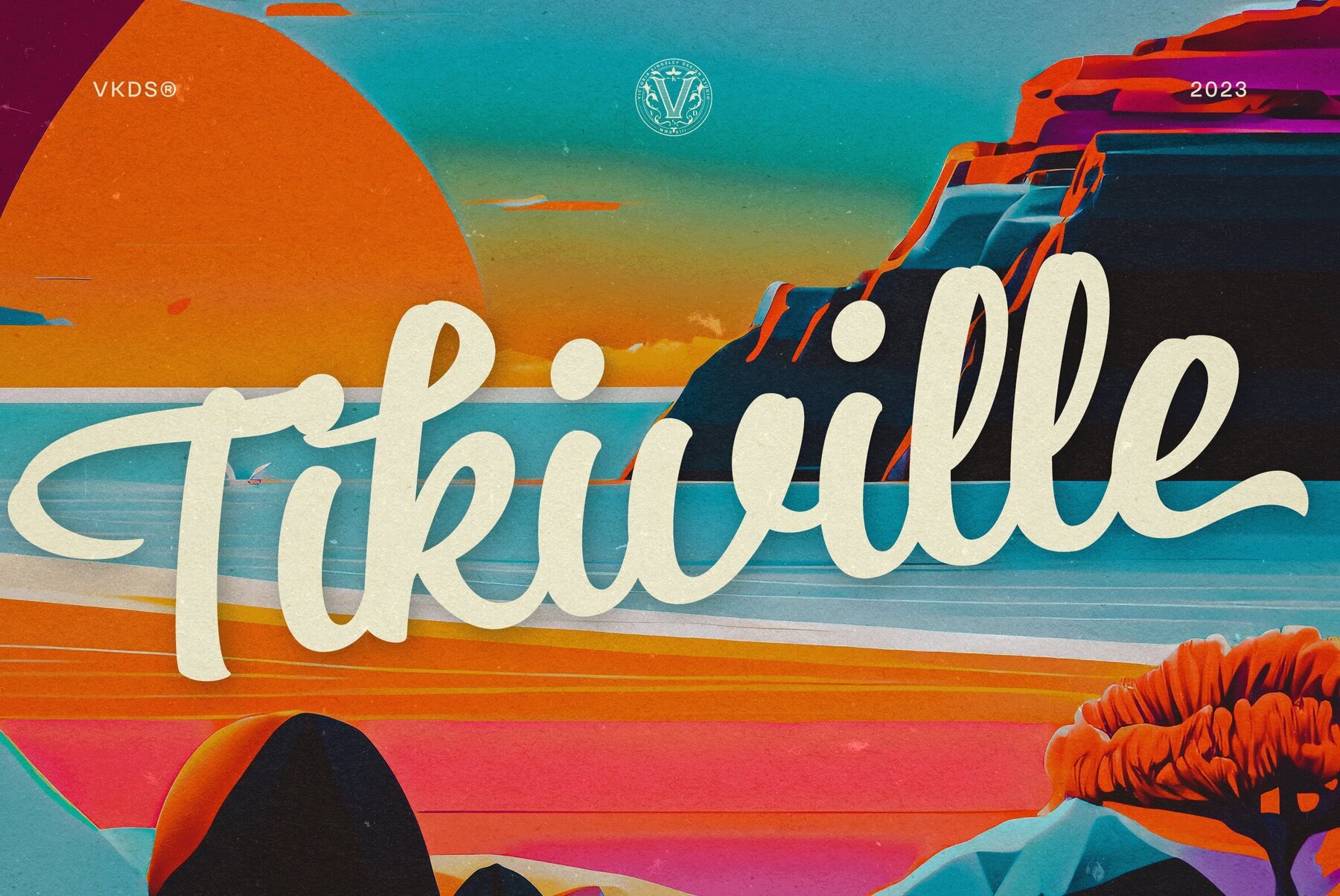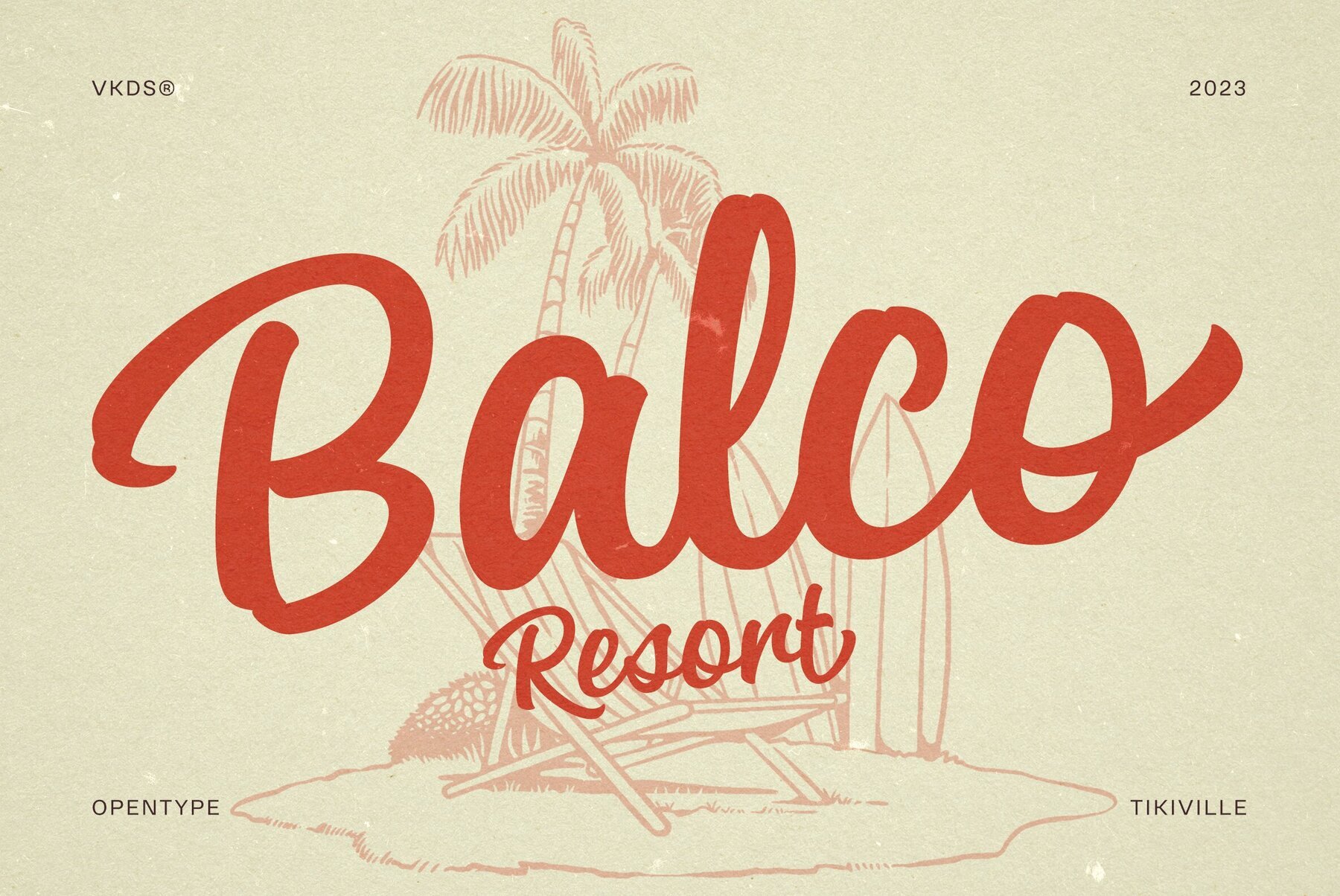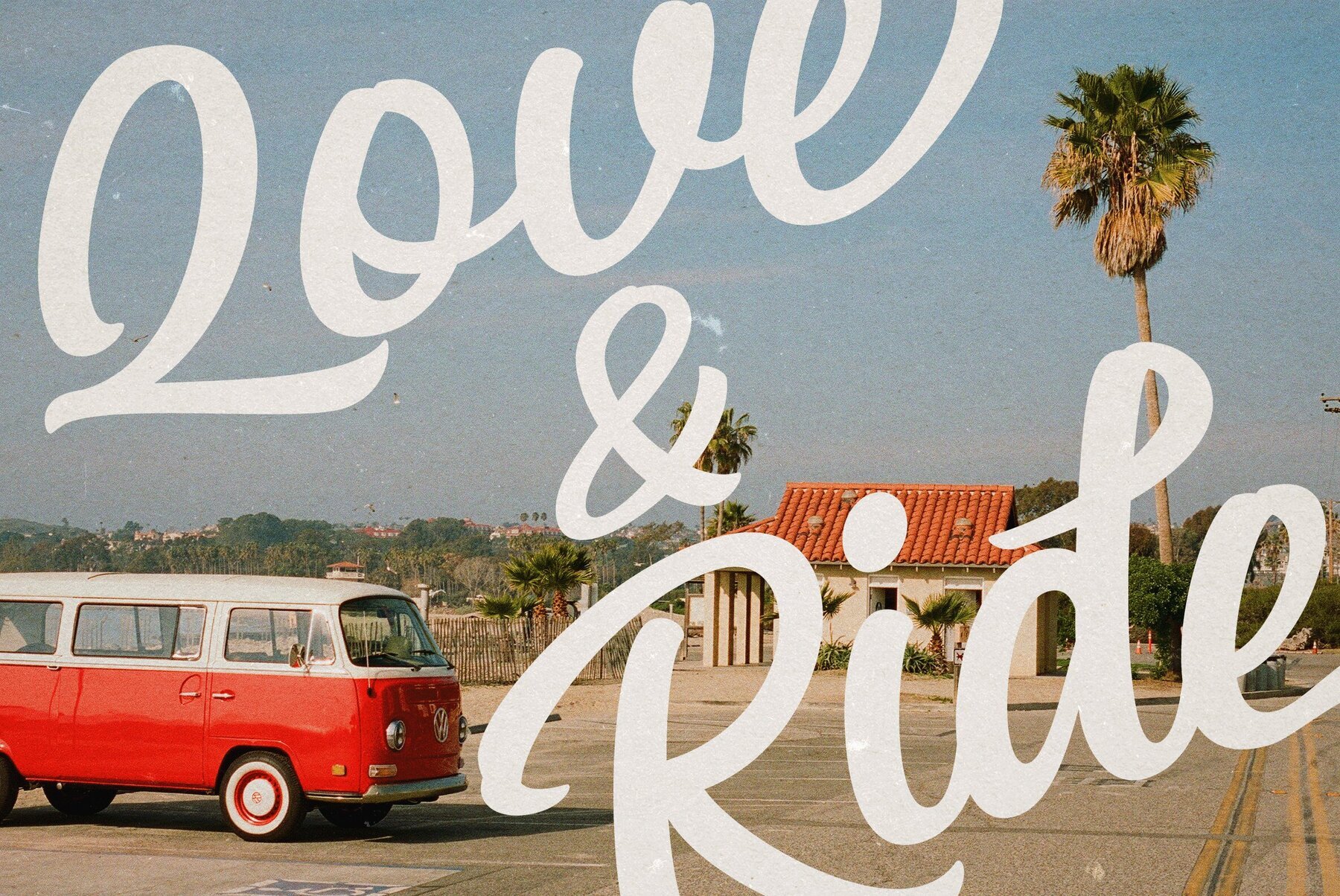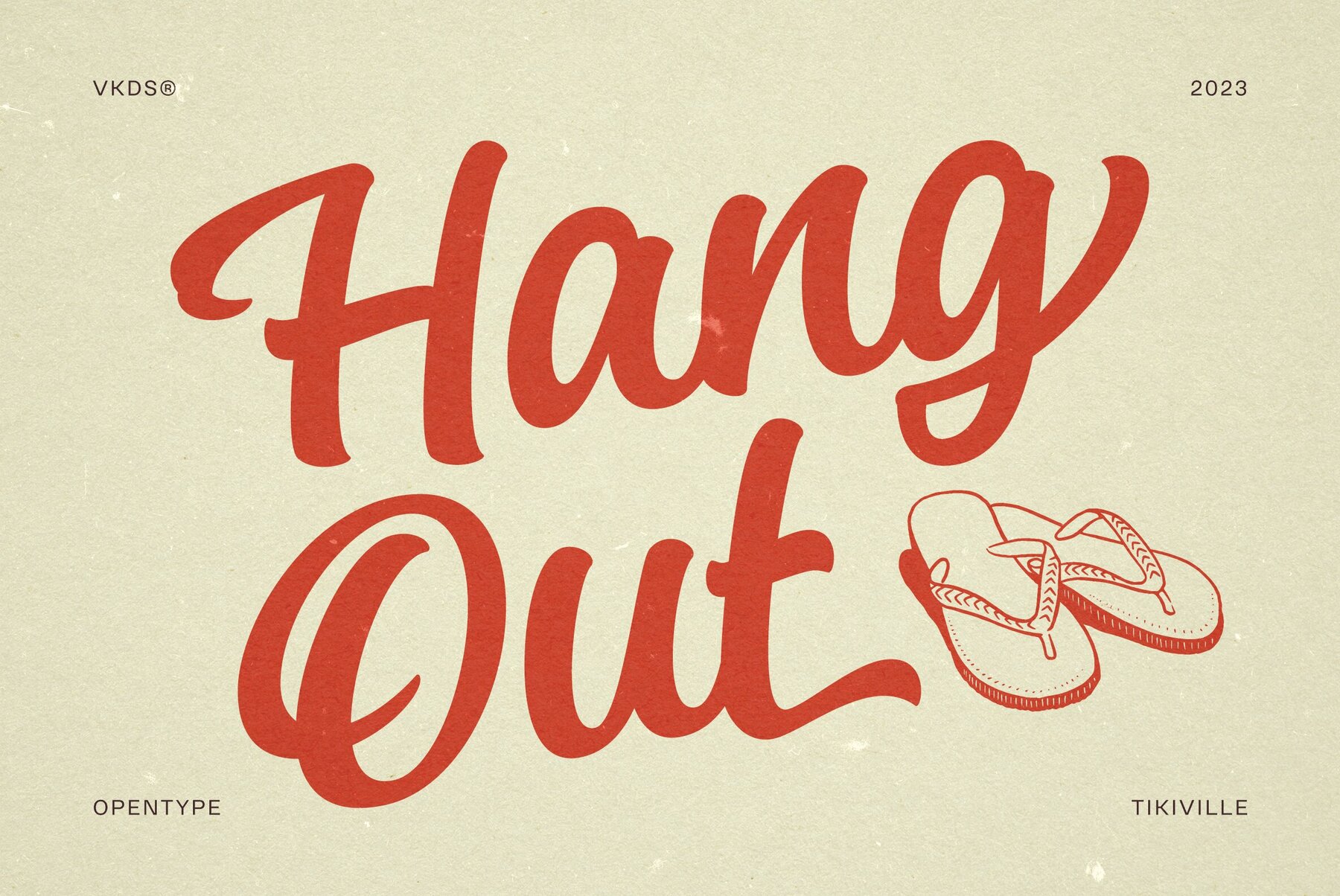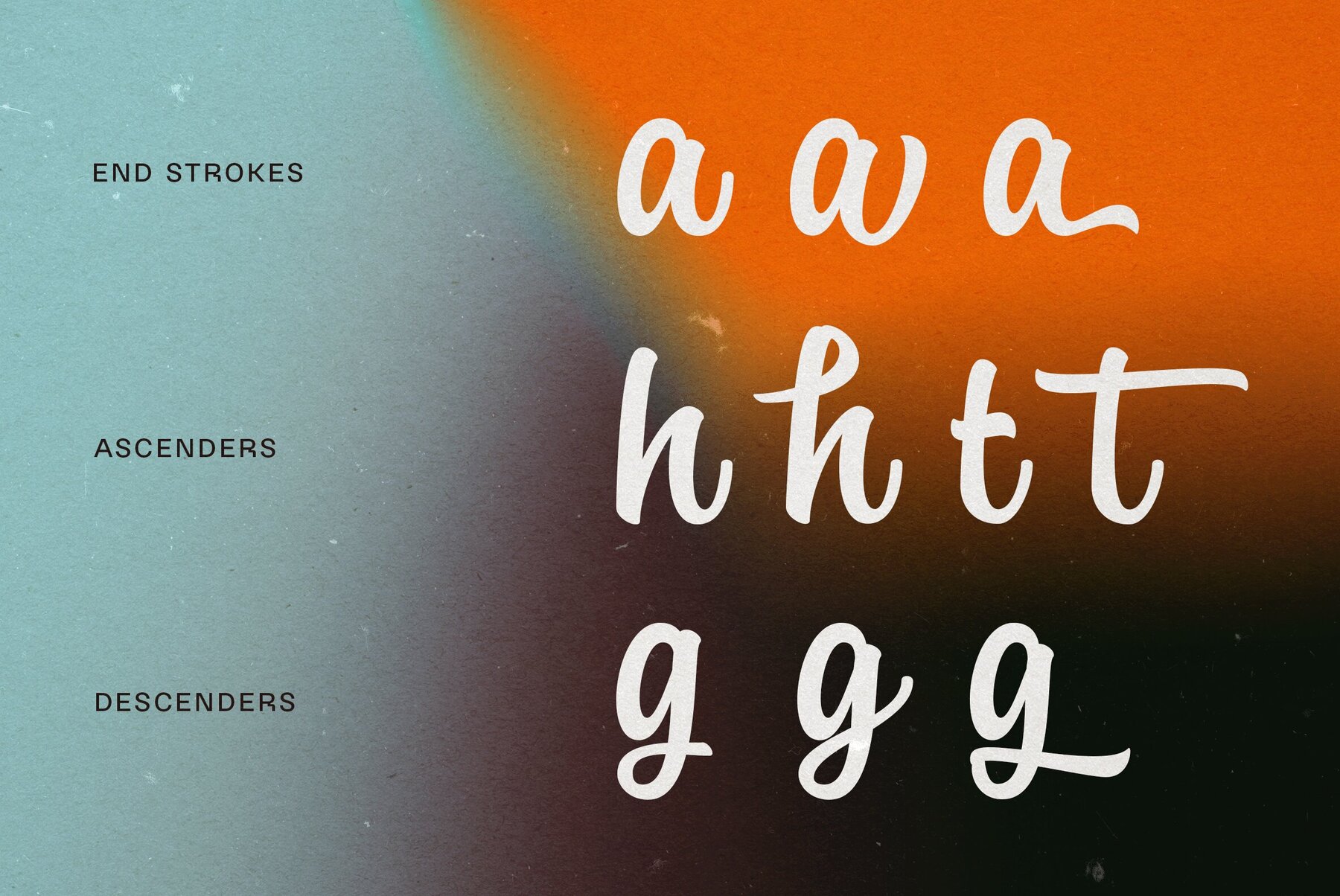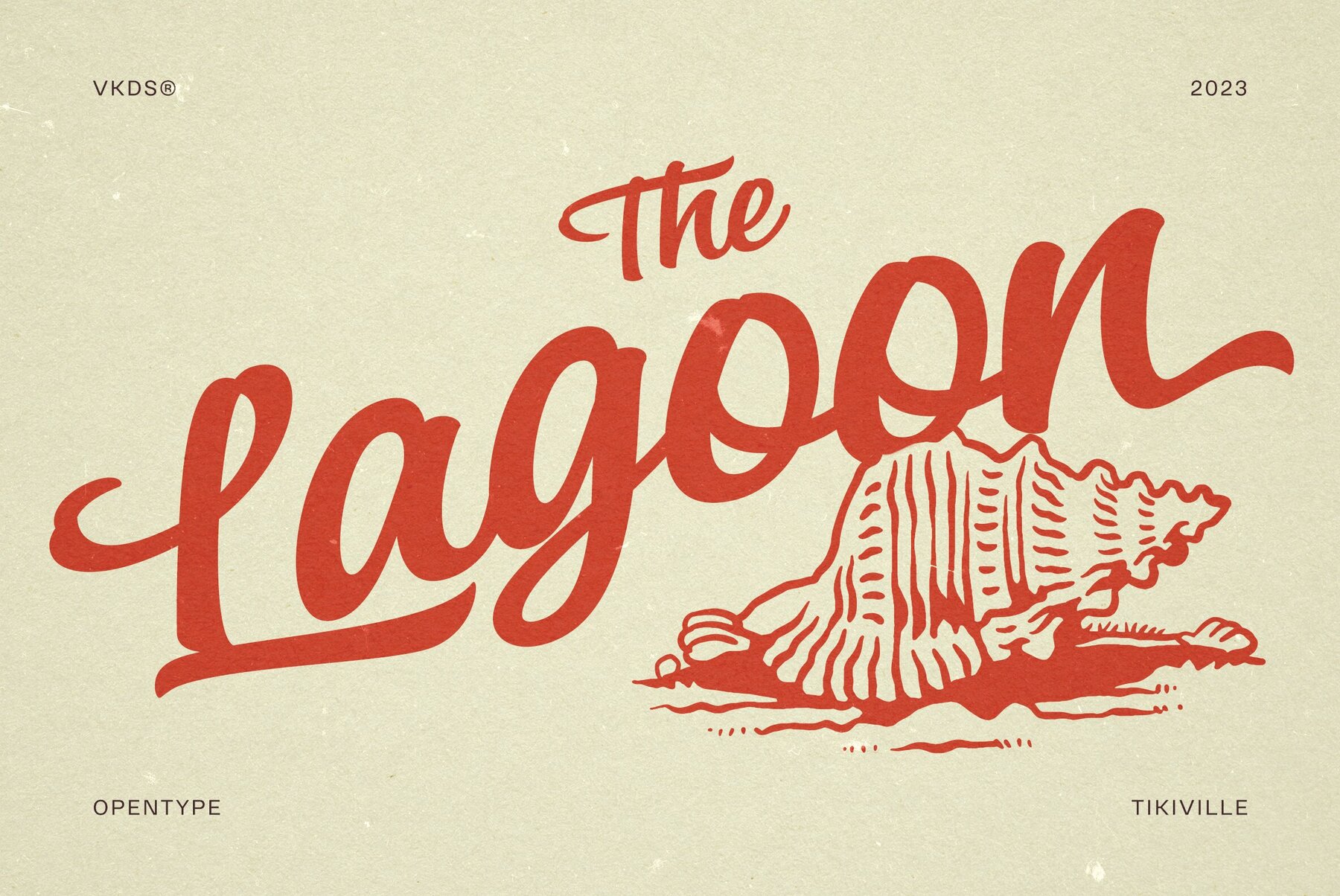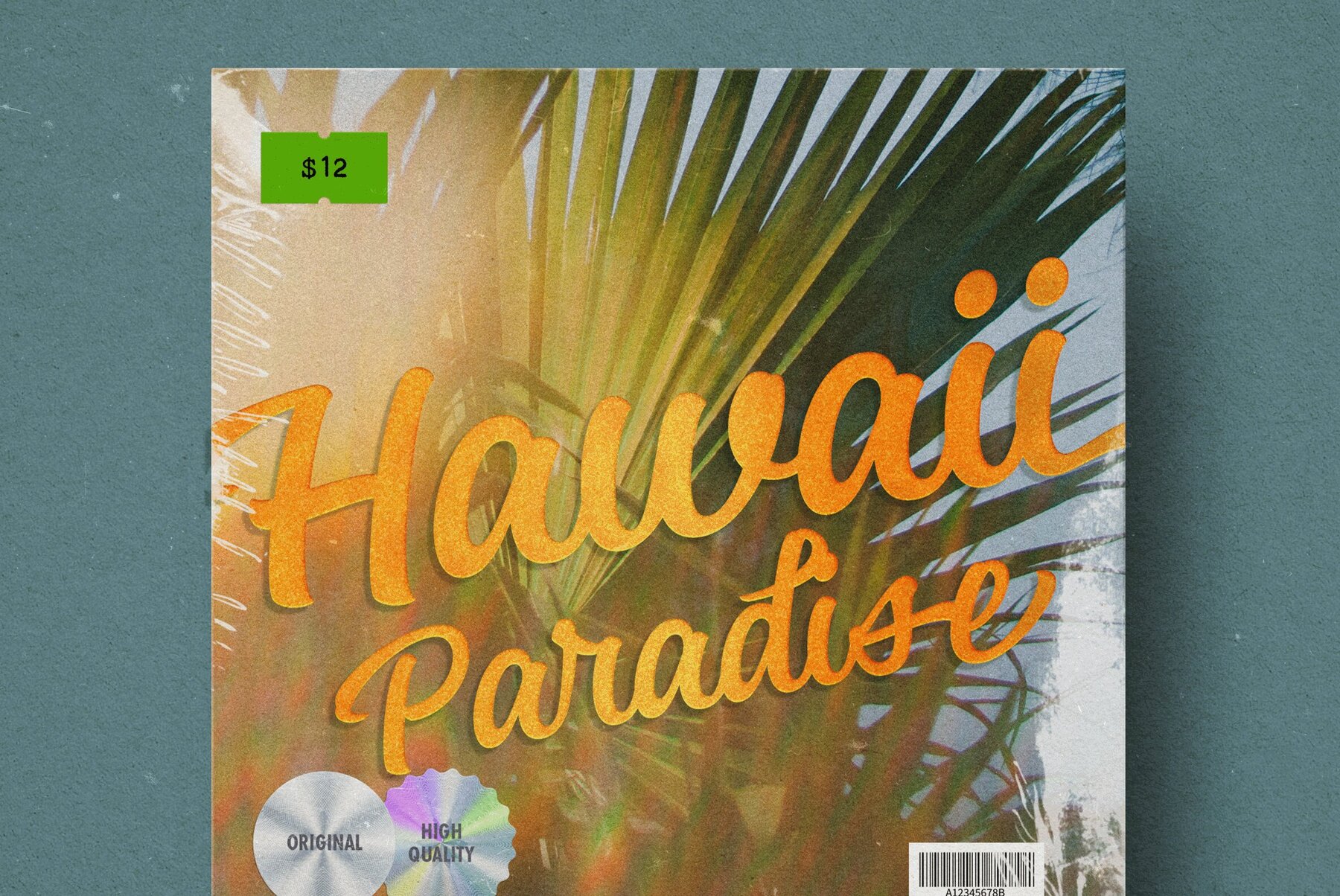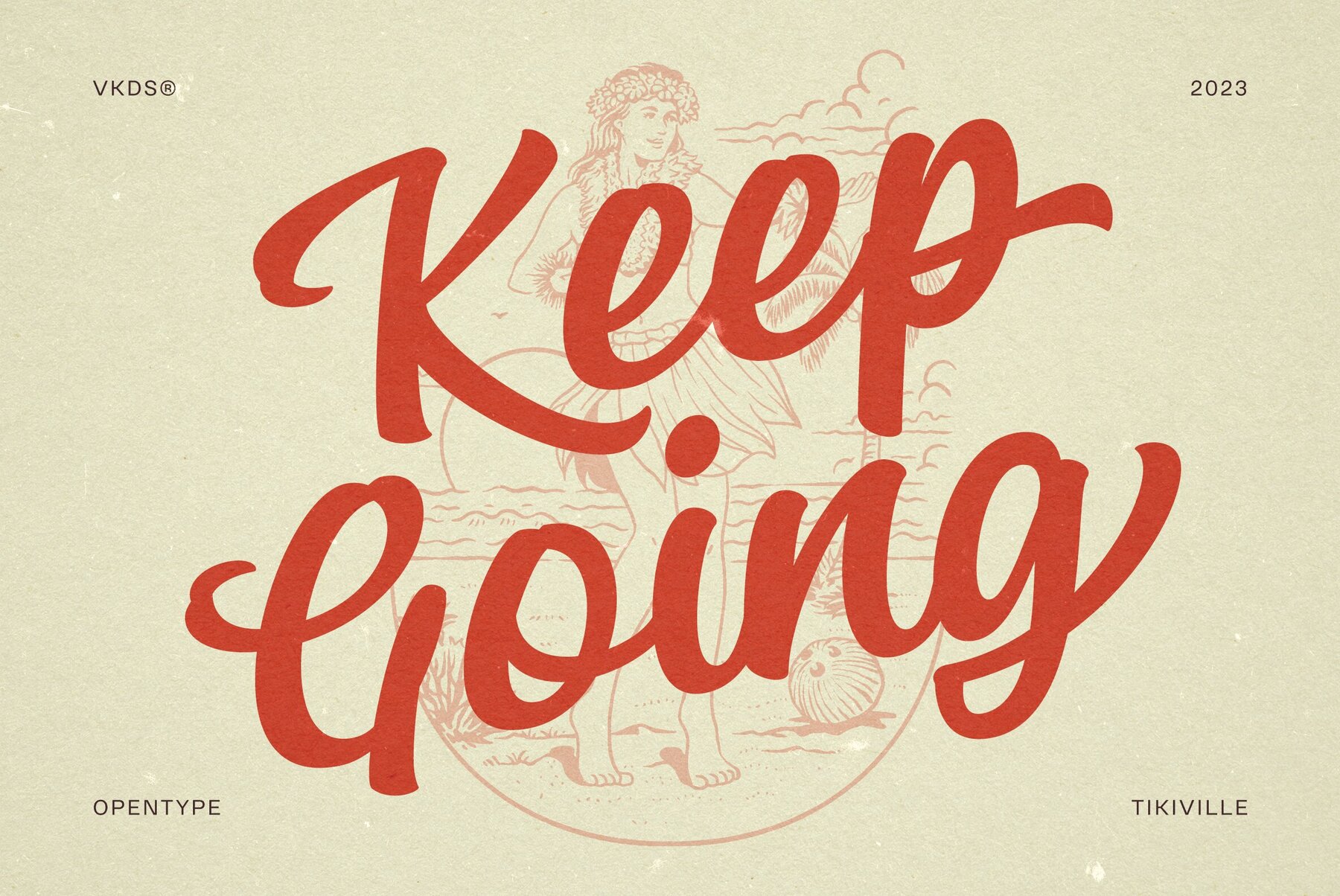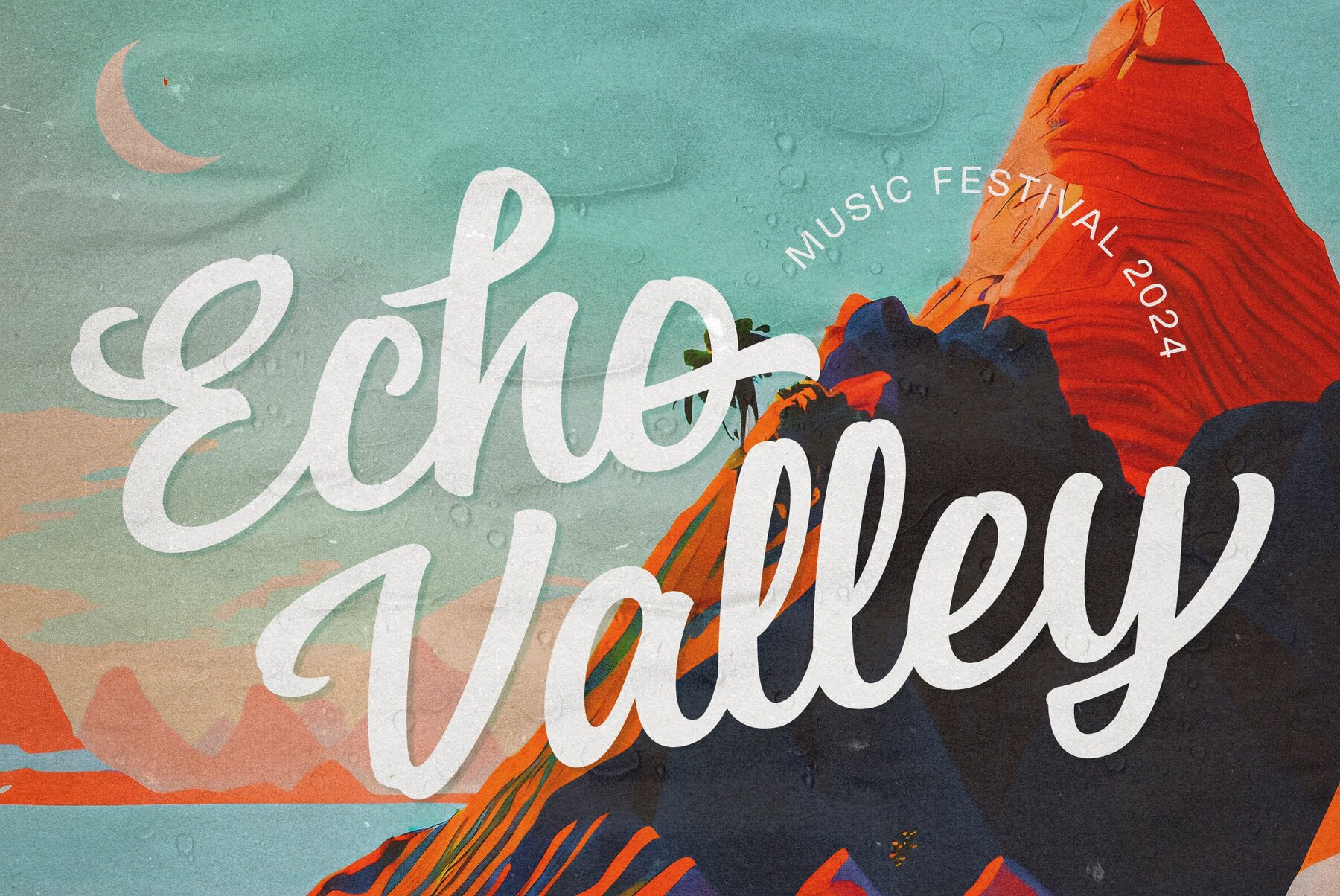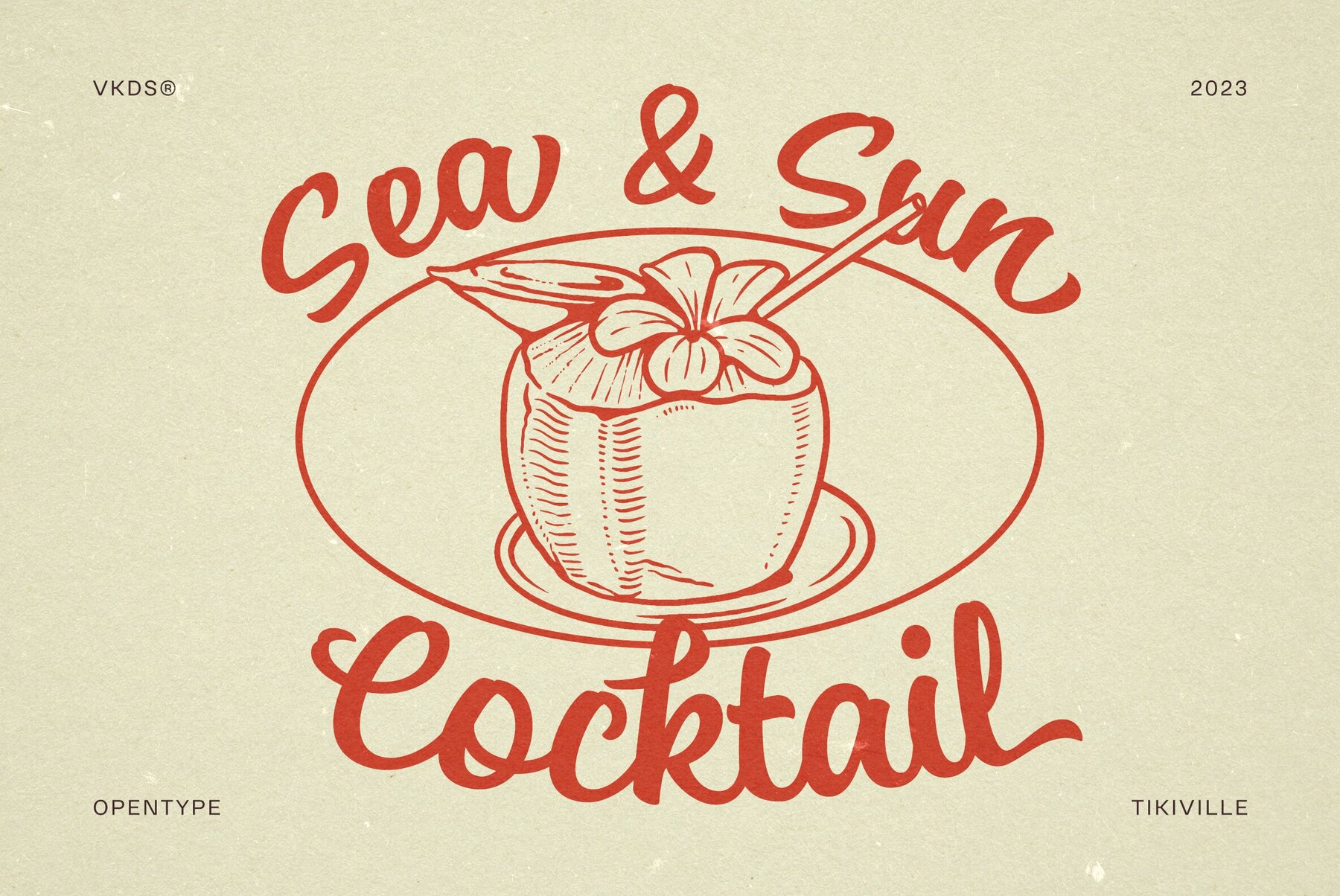
Tikiville Font
Introducing "Tikiville," a delightful retro and vintage font inspired by tropical and tiki-style design projects. With nearly 500 glyphs, this versatile typeface offers a wealth of letter choices and OpenType features, perfect for holiday or summer, outdoor-related designs. The font comes in two styles - Regular and Alternate, providing even more creative options for your projects. Tikiville truly shines in tiki design, tiki lettering, and tiki bar font applications, making it an essential addition to your collection. This tiki tropic font is not only ideal for social media and broadcast projects, but also for apparel design. Easy personal and corporate licensing options are available, ensuring you can seamlessly incorporate Tikiville into your creative endeavors. Additional products used for slideshow images: